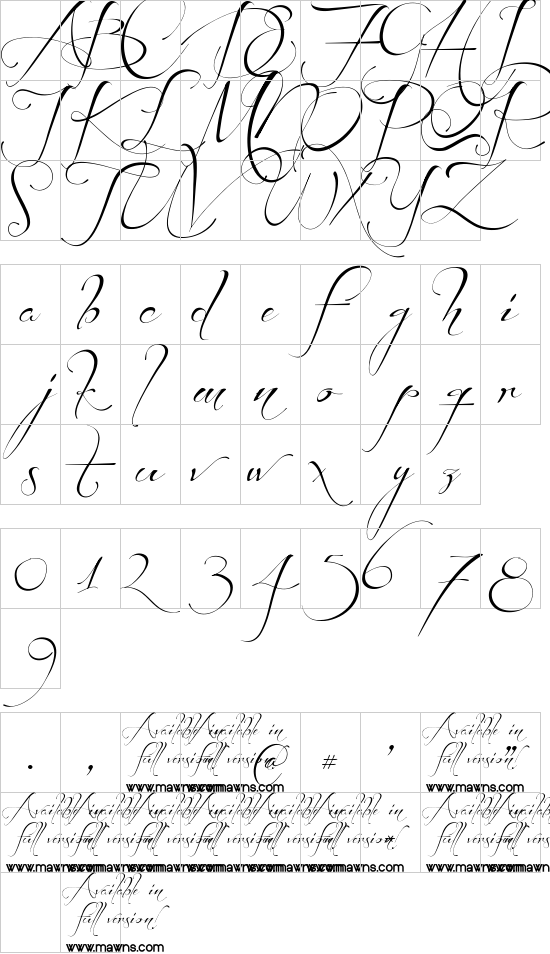
Before the Rain is an expressive calligraphic script with thin, emotive strokes and a flowing, tattoo-friendly hand. The lines feel lightly pressed and slightly irregular, giving the writing a romantic, almost wistful quality that reads as deeply personal.
That tender character suits tattoo lettering, poetry layouts, love-themed posters, and delicate apparel designs. Before the Rain is free to download as a TrueType file, and you can preview your own words to see how the slender strokes connect before you add it to a project.